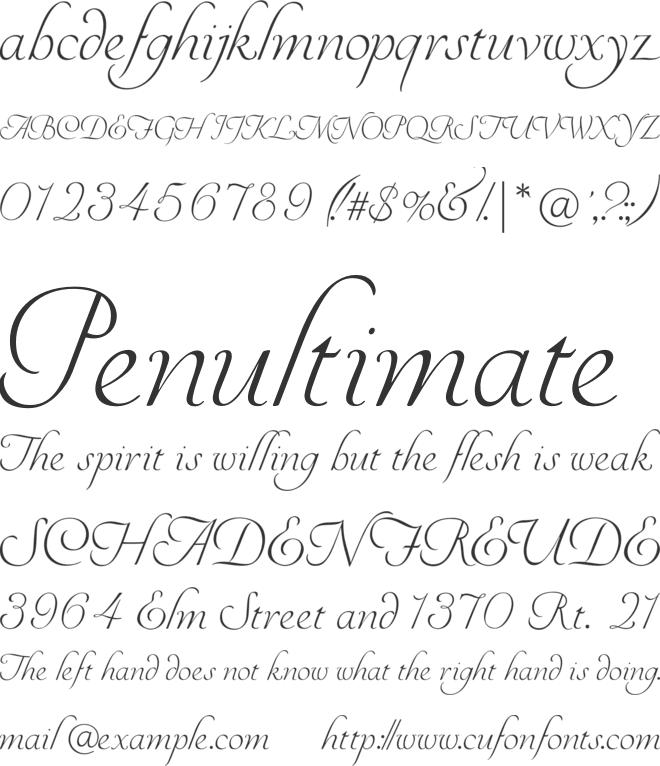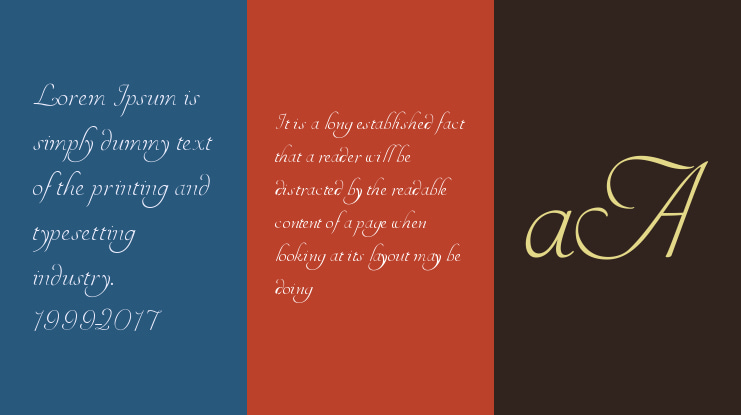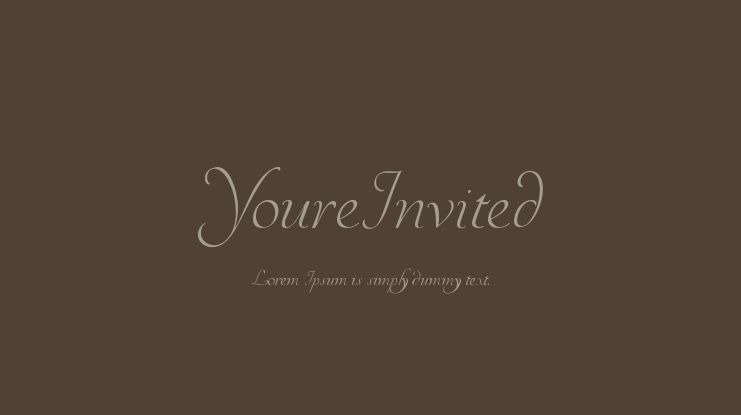
YoureInvited Font Family
YoureInvited font preview
YoureInvited Regular font
YoureInvited Heavy font
Traced from the 1916 book LETTERING by Thomas Wood Stevens. The typeface is designed by Lawrence Rosa. This font is free for non-commercial use and donationware for commercial use. Make a donation through PayPal my account there is: